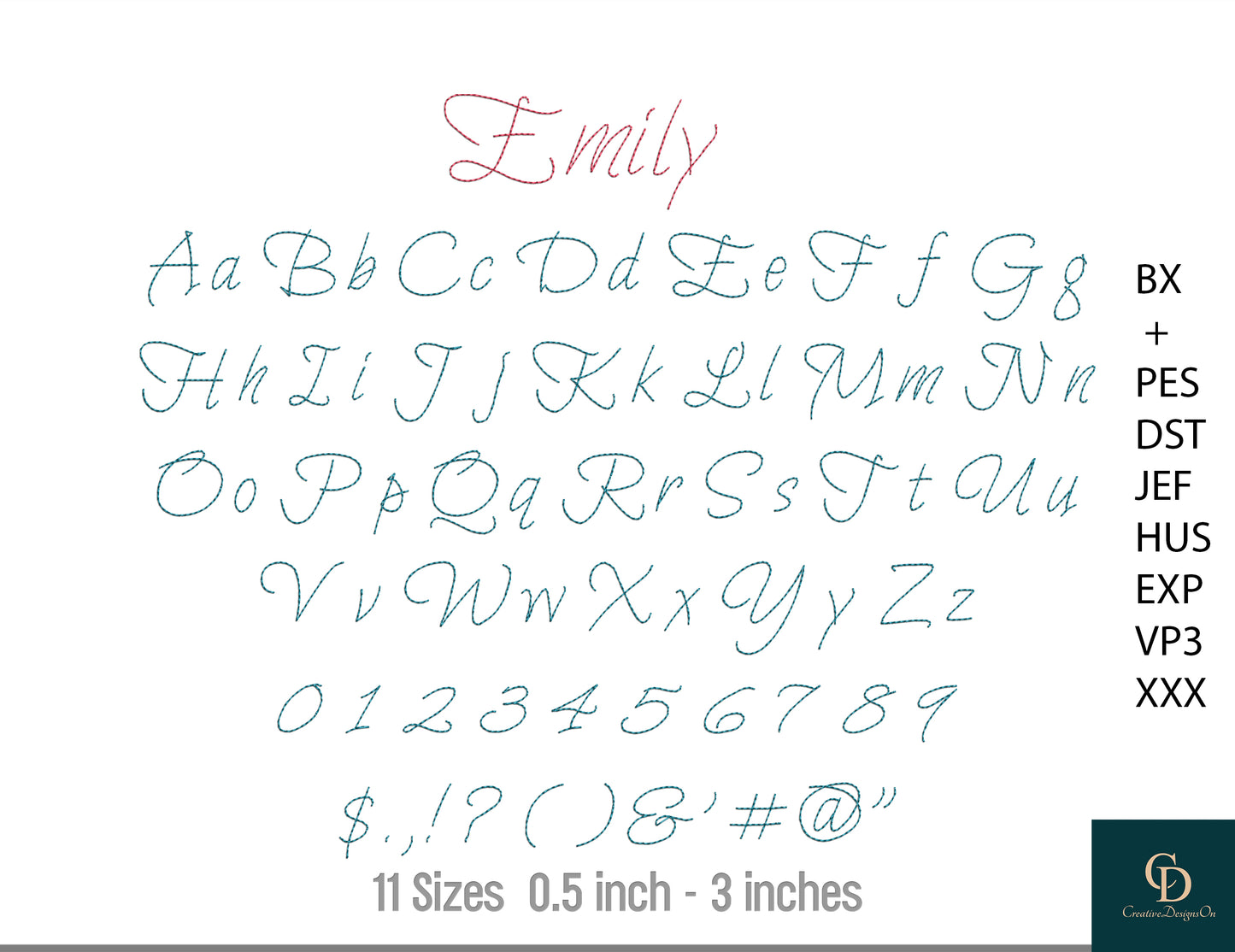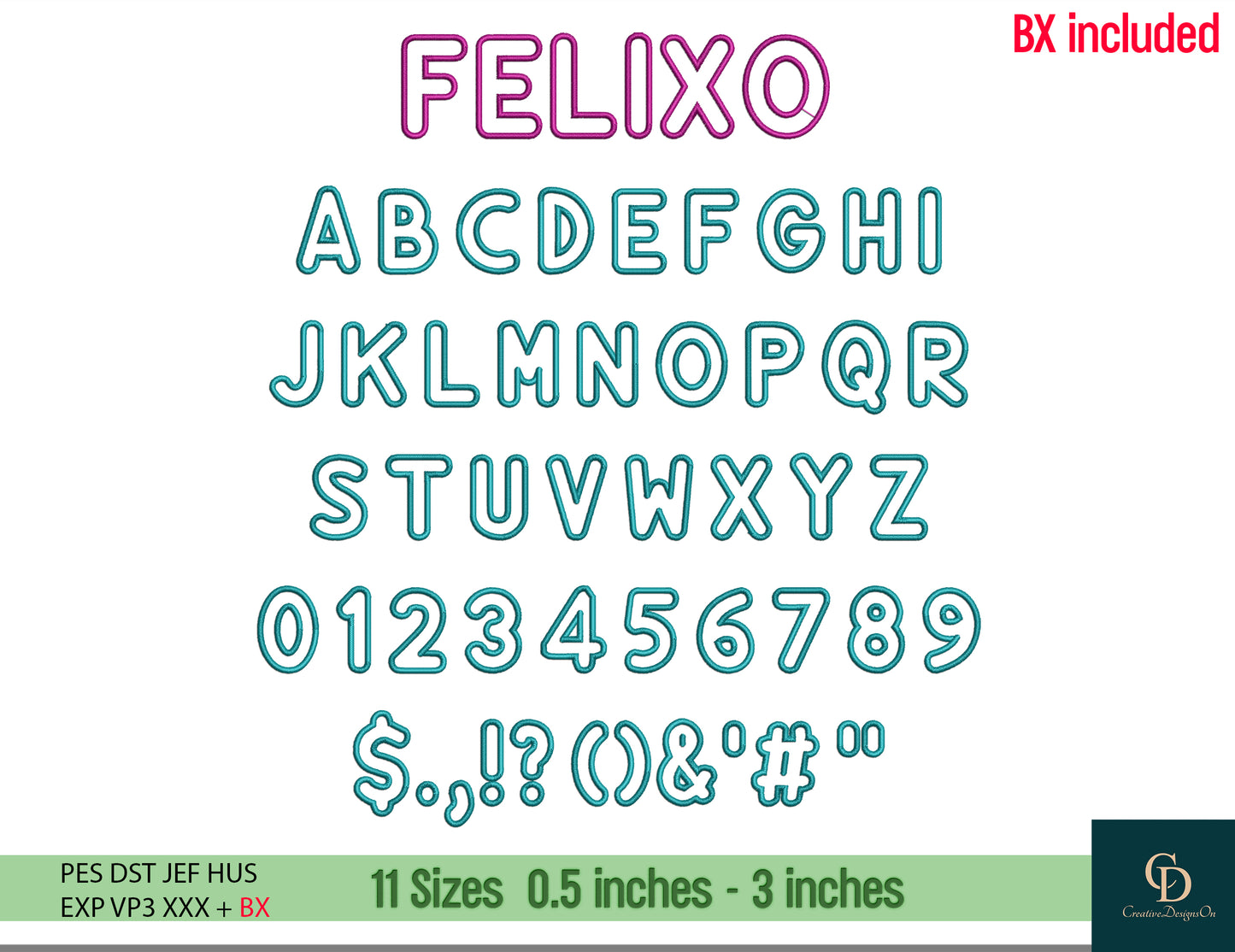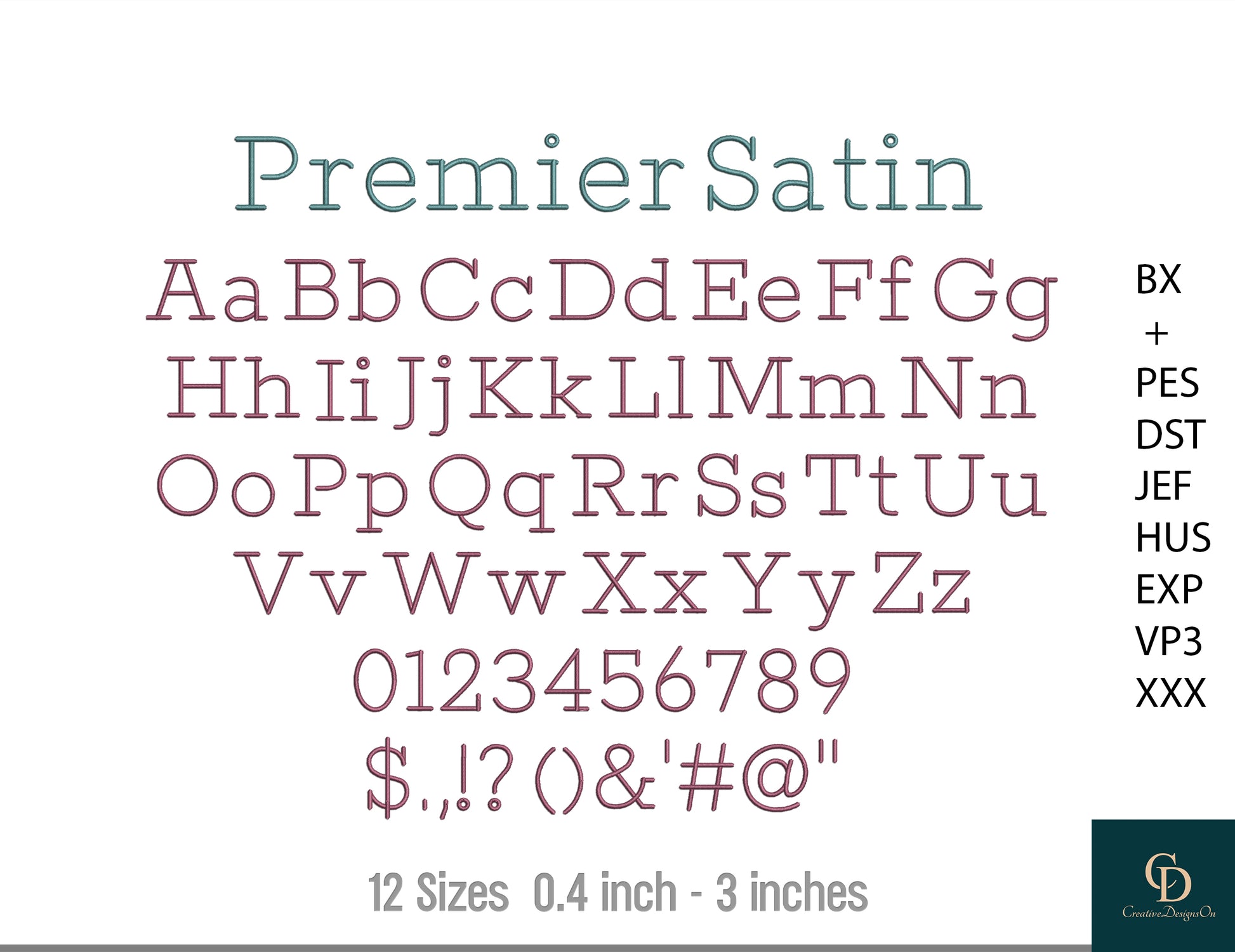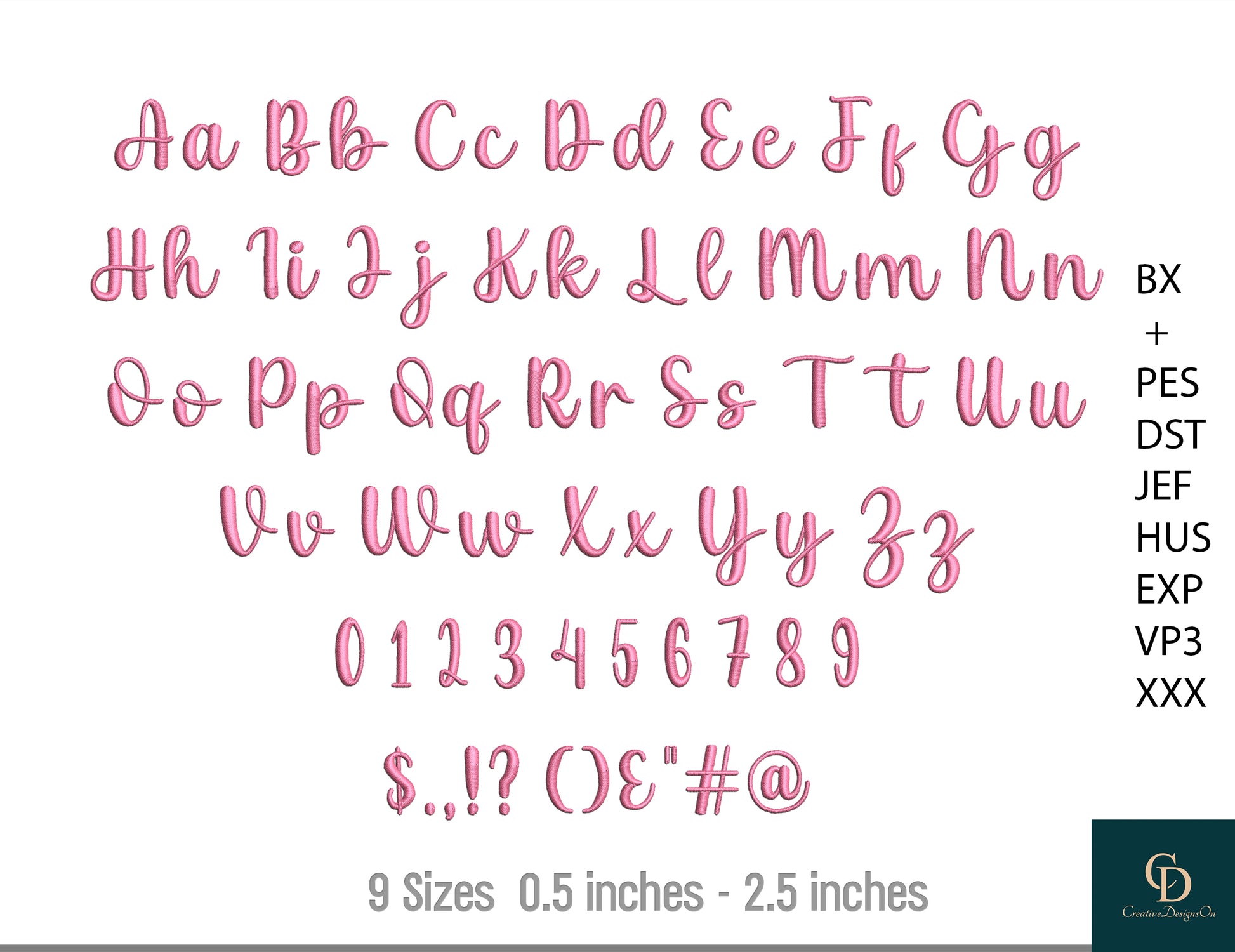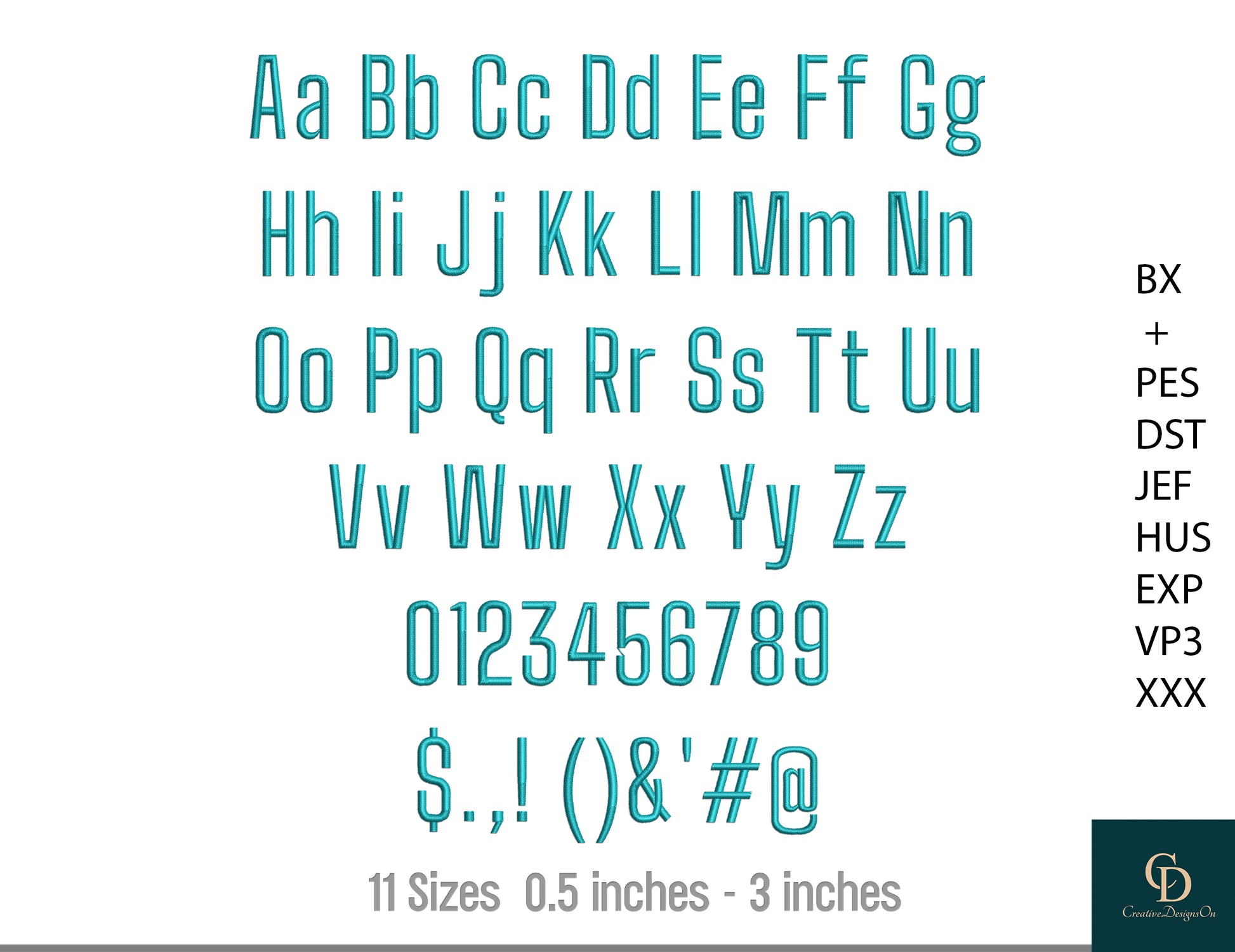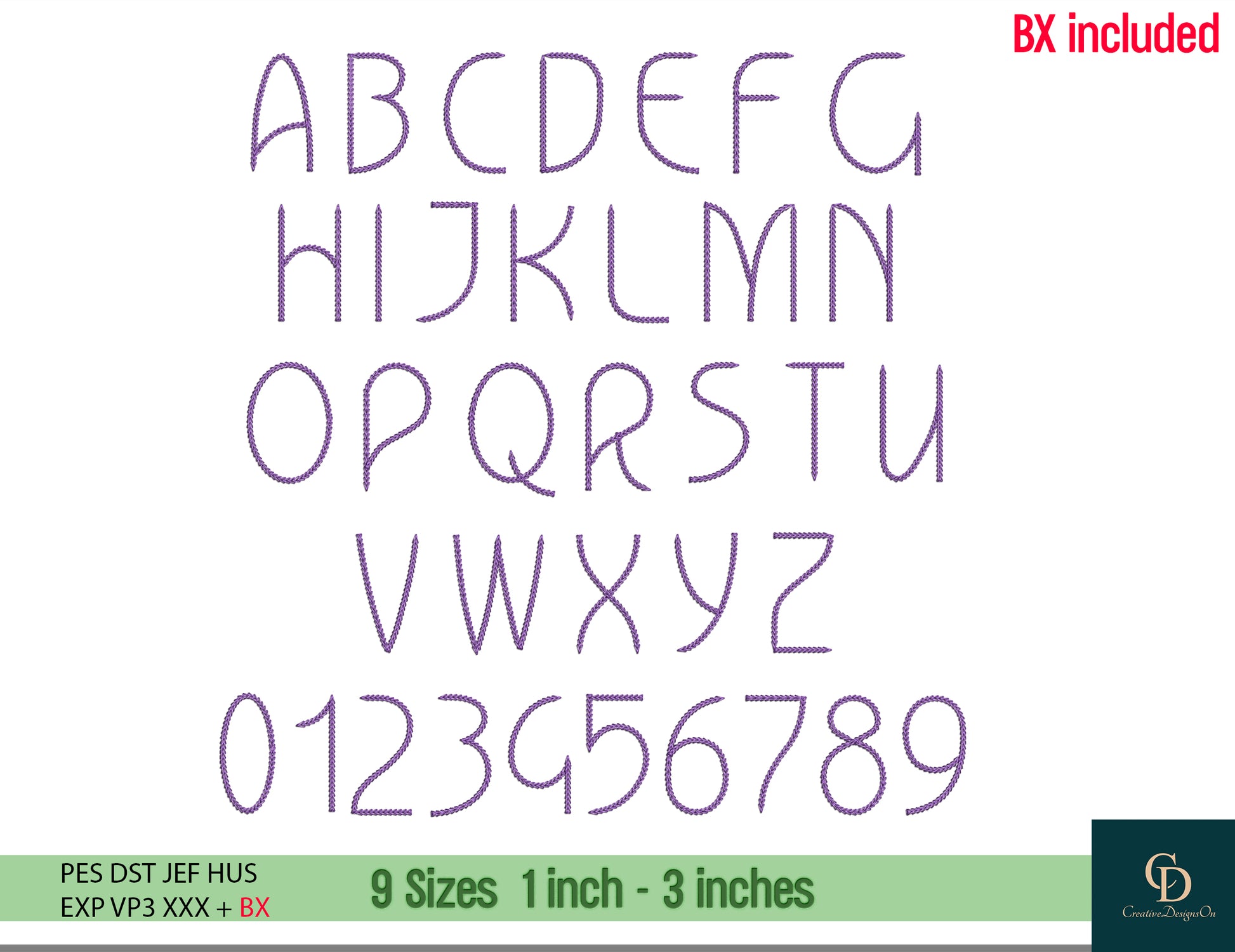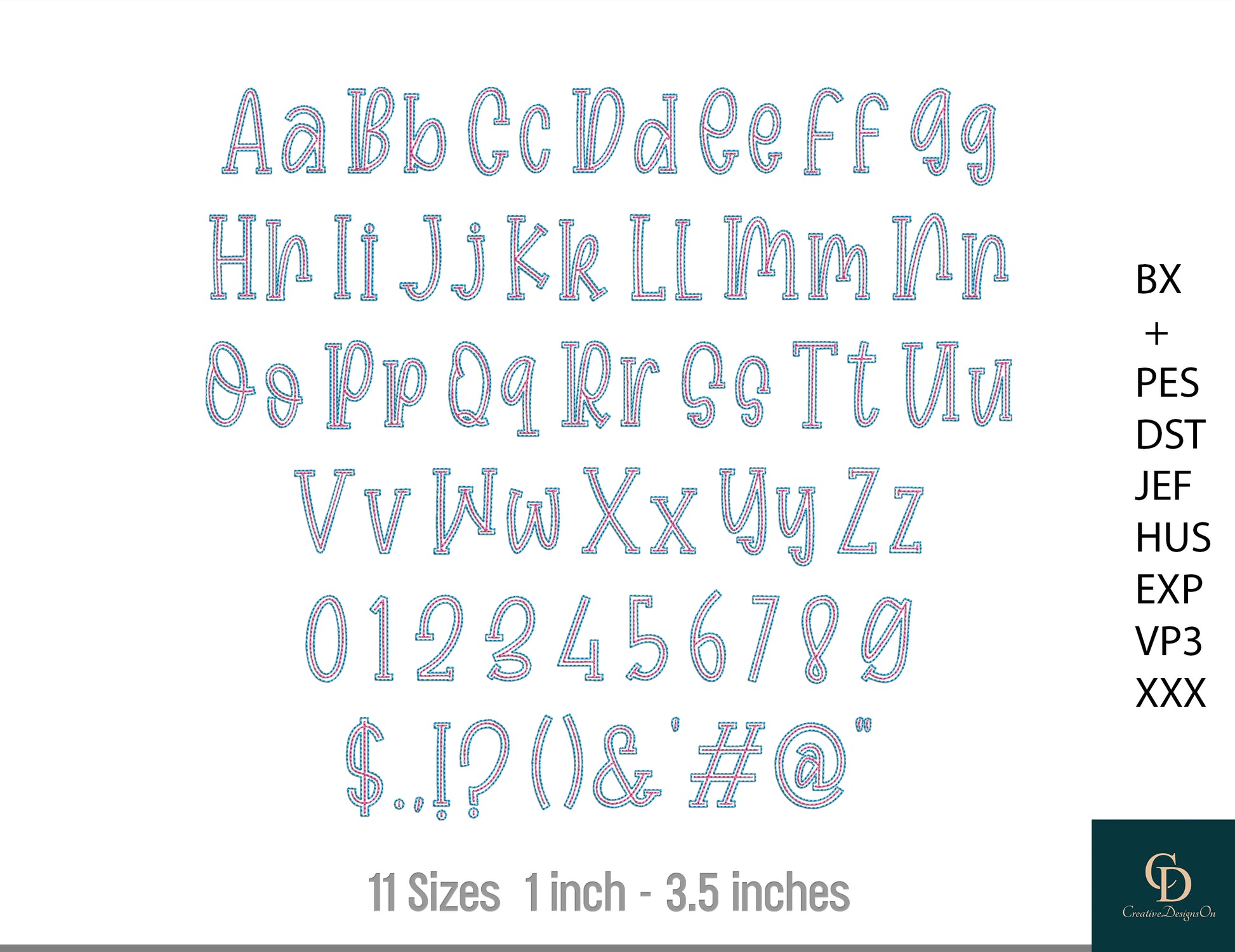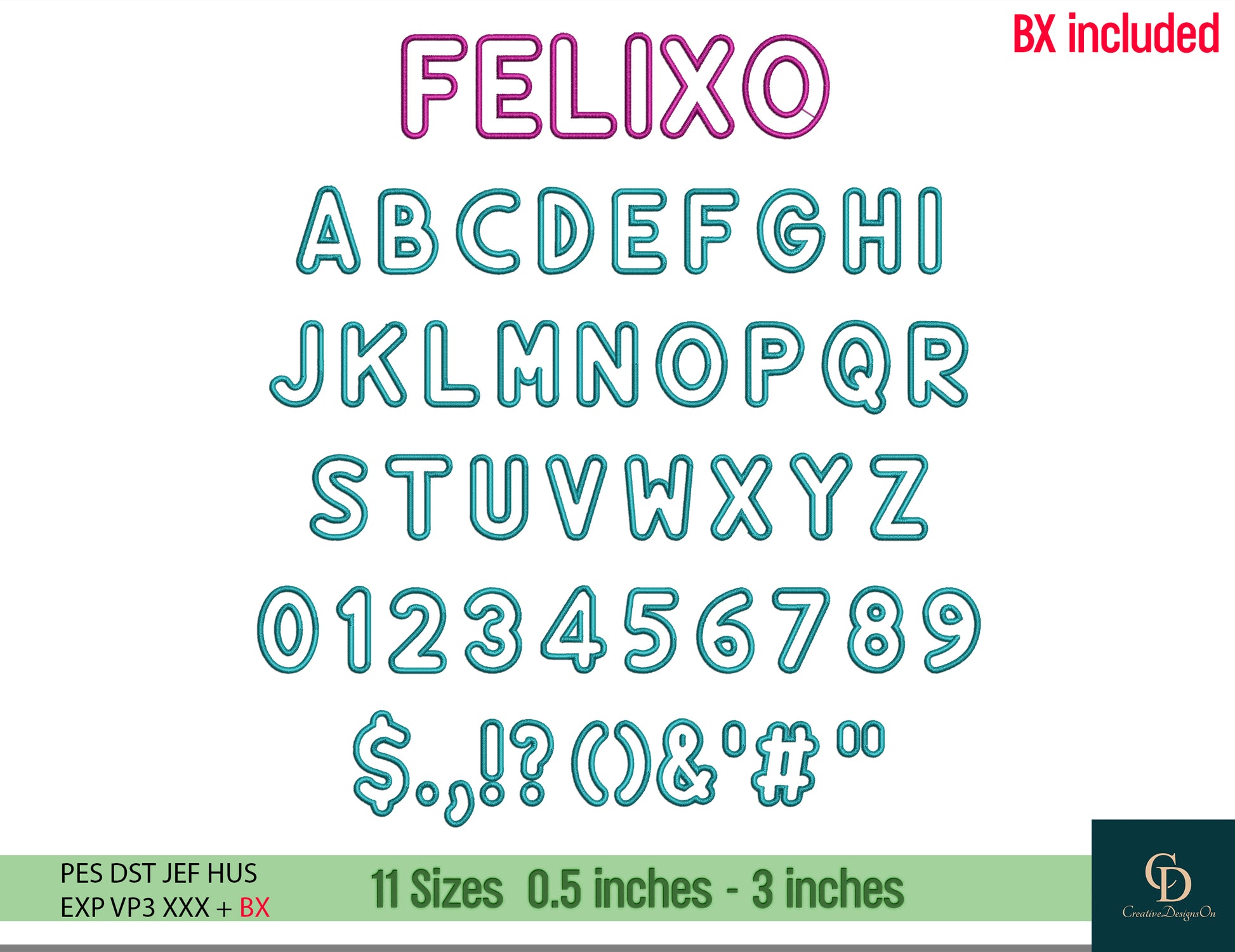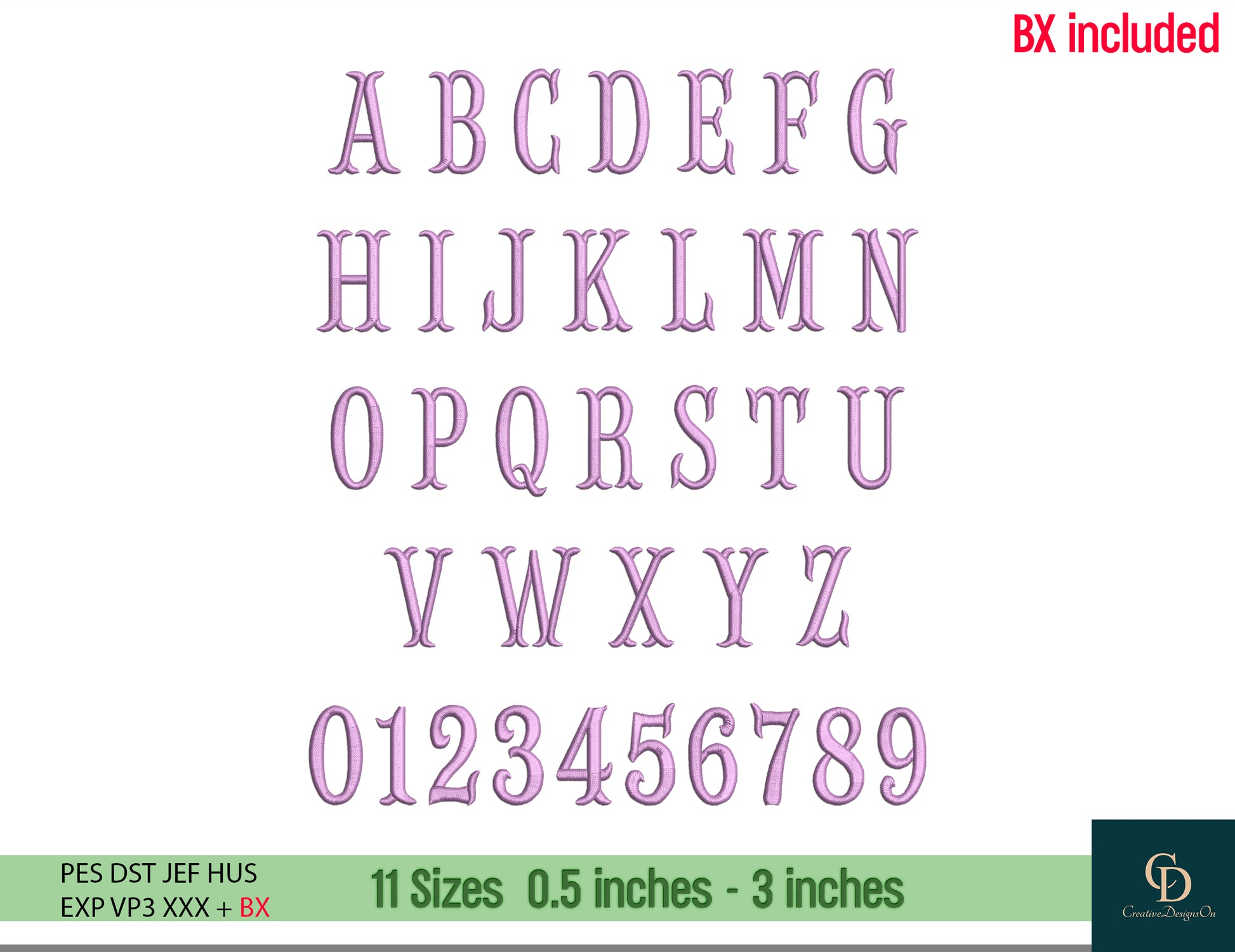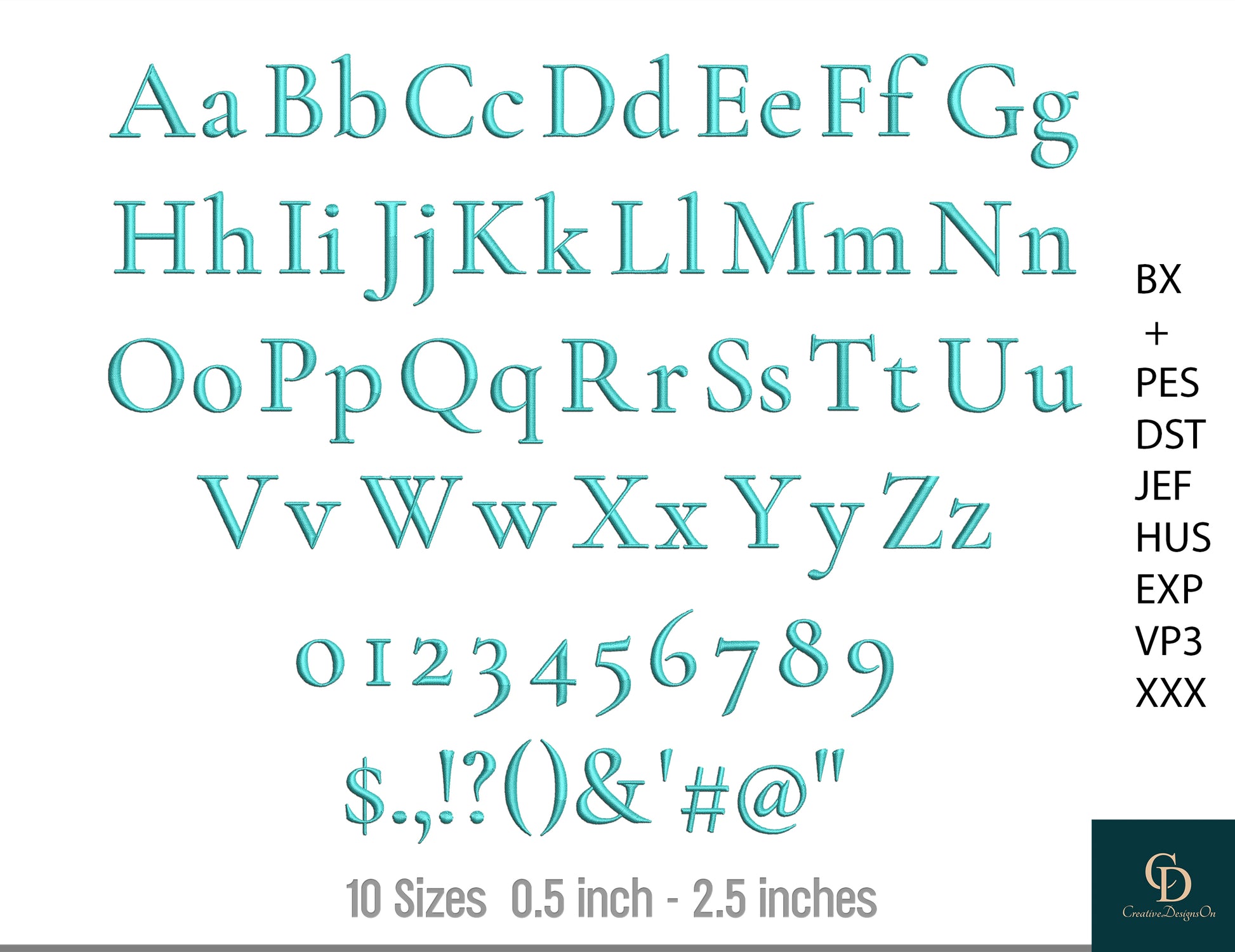
Machine Embroidery Fonts Bundle, Super BX Set of 12 Fonts, Monogram Alphabet, Satin Font, Boho Signature Font, 11 Sizes
Set of 12 Machine Embroidery fonts, BX Cursive Machine Embroidery Font, Monogram Script Alphabet, Satin Stitch, Bean Stitch, Double Stitch Font, PES, DST, Boho Signature Font, 10 - 11 Sizes, Instant Download, Native BX Format for Embrilliance included
12 SUPER COOL DIFFERENT STYLES AND TECHNIQUES machine embroidery alphabet font sets
Upper case and Down case letters plus Digits and punctuation marks in multiple formats for each font